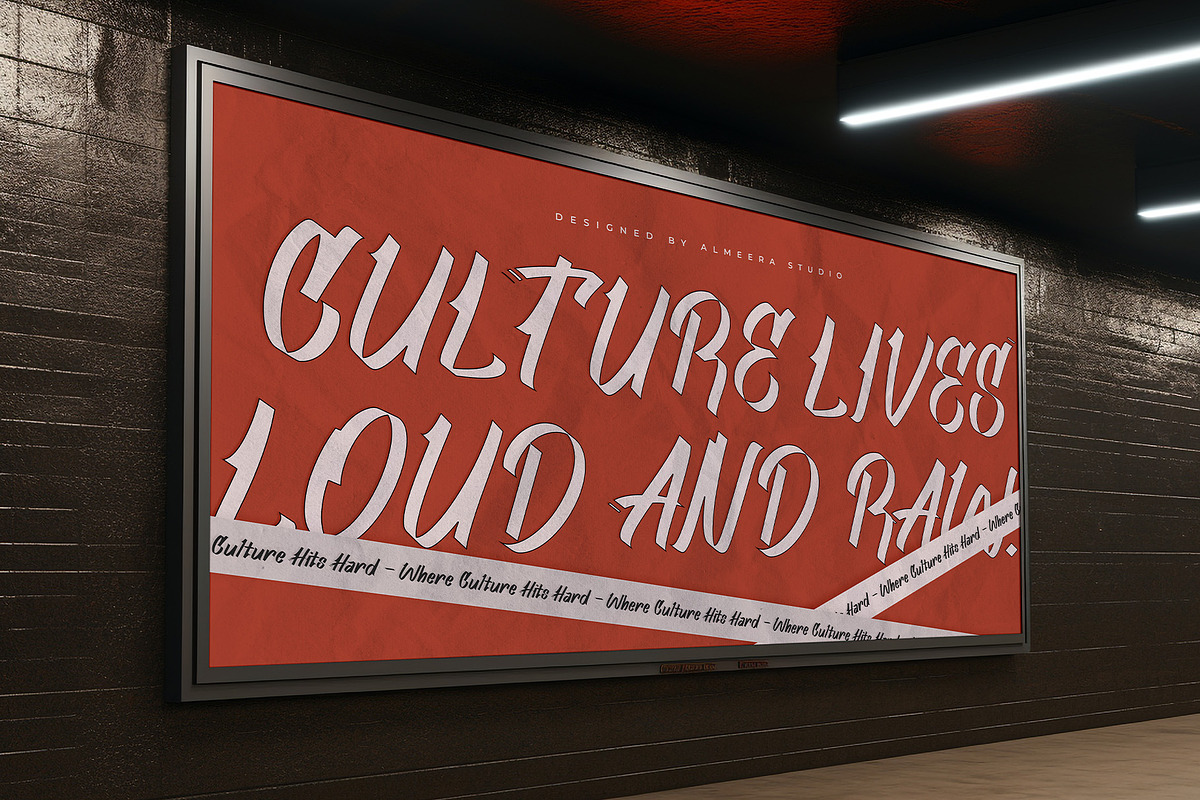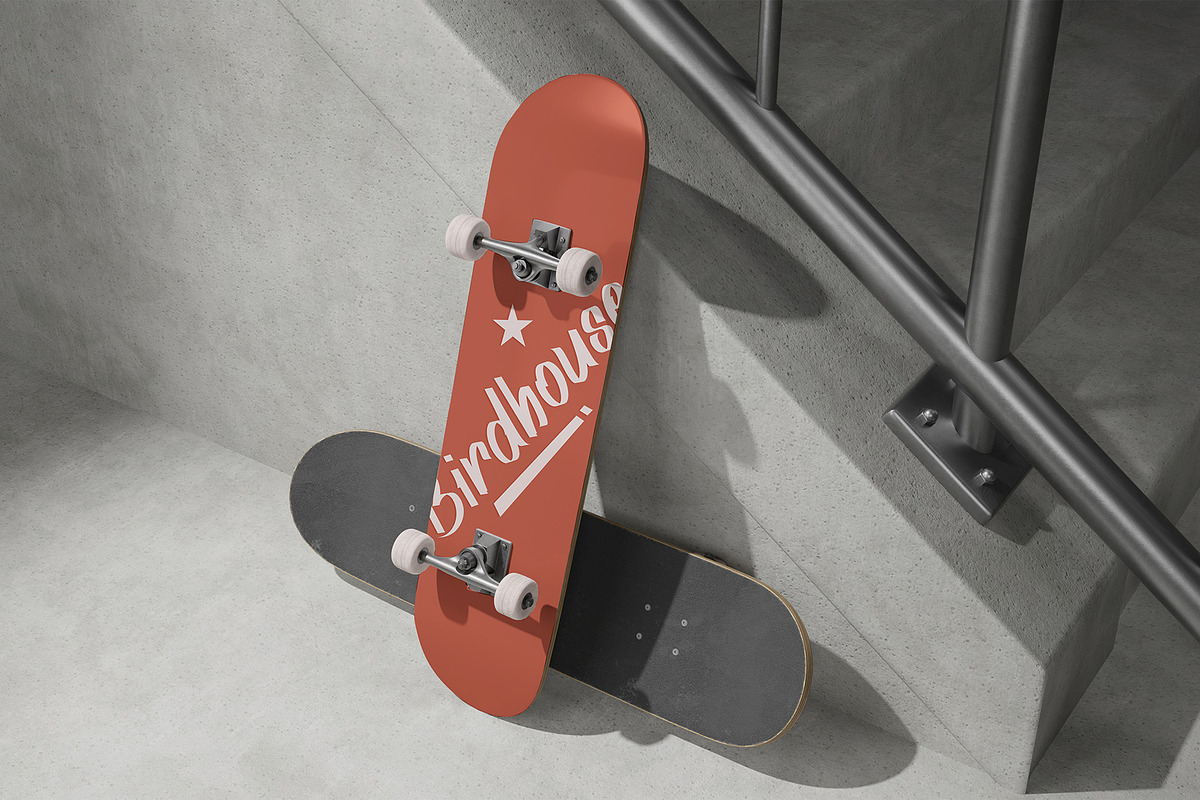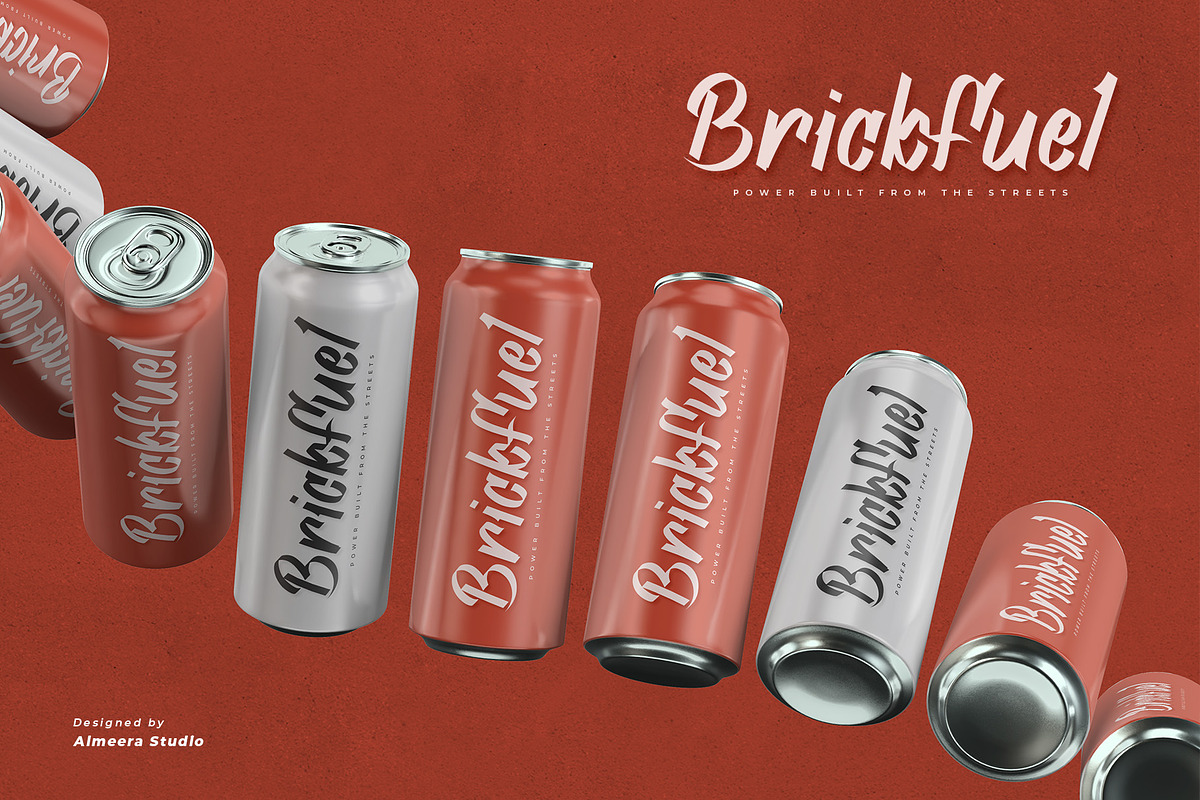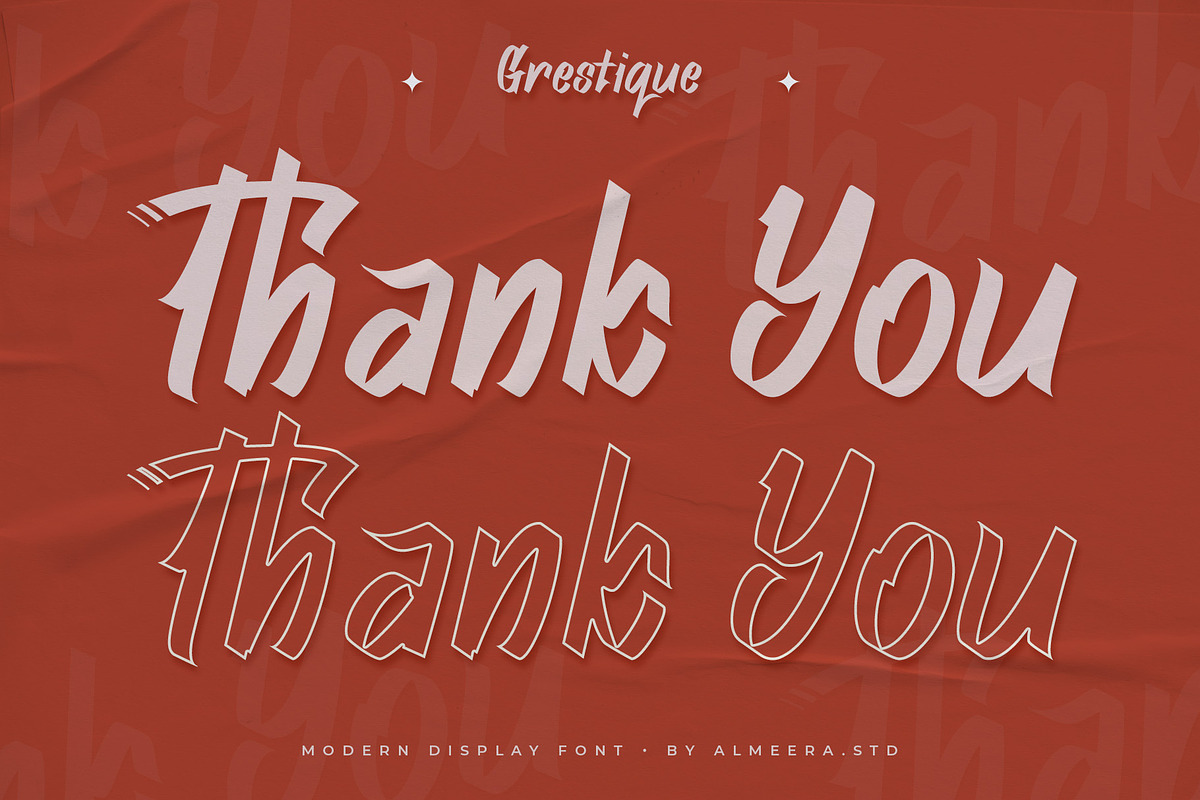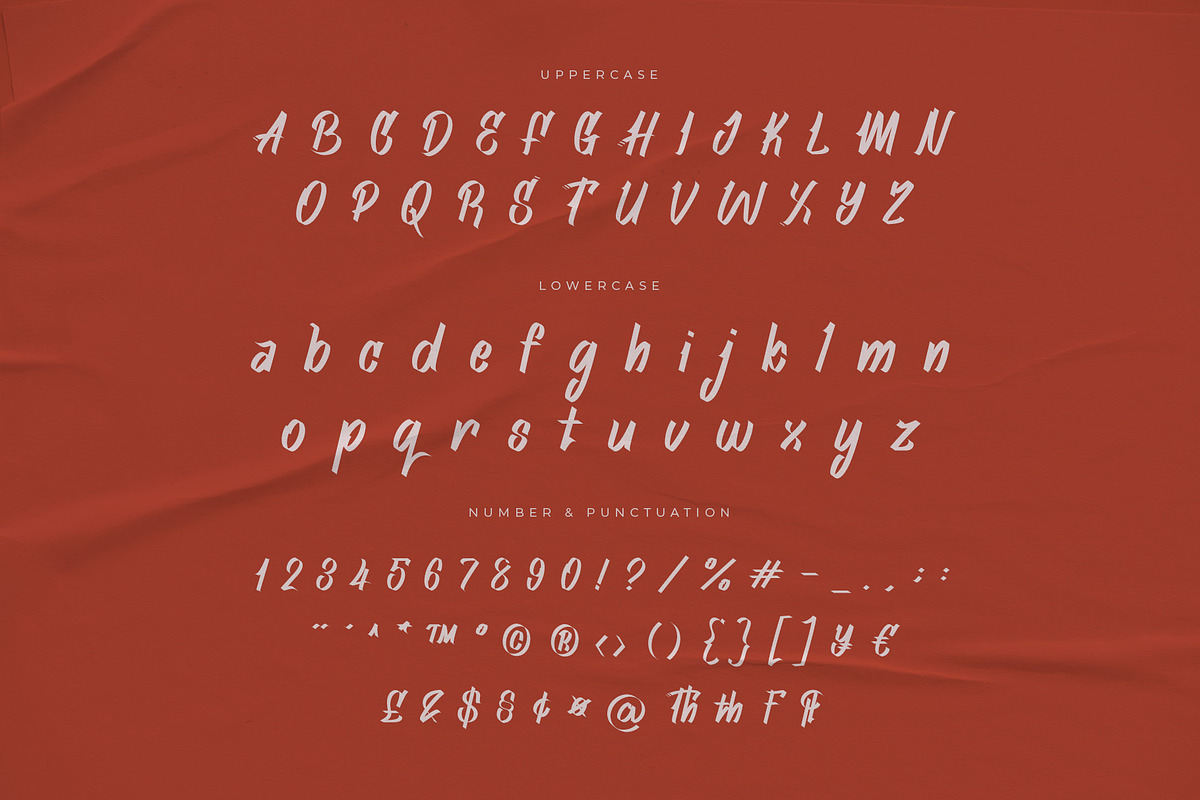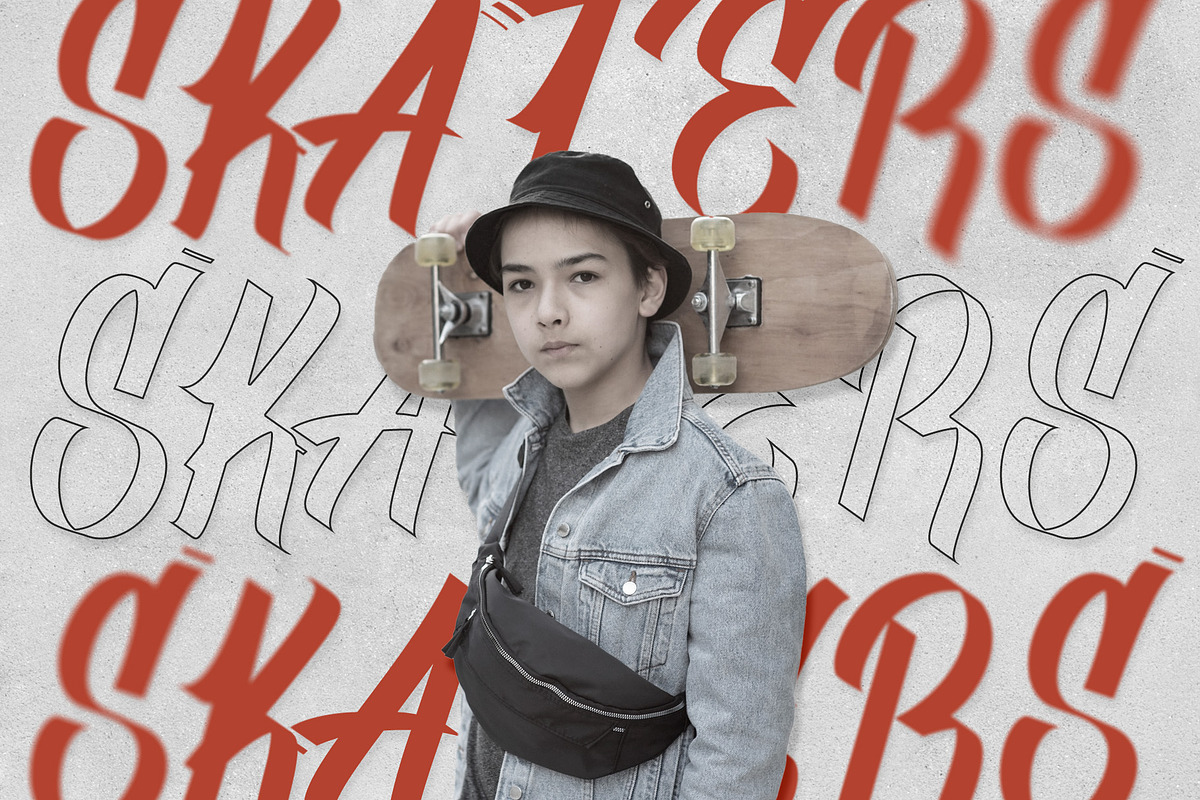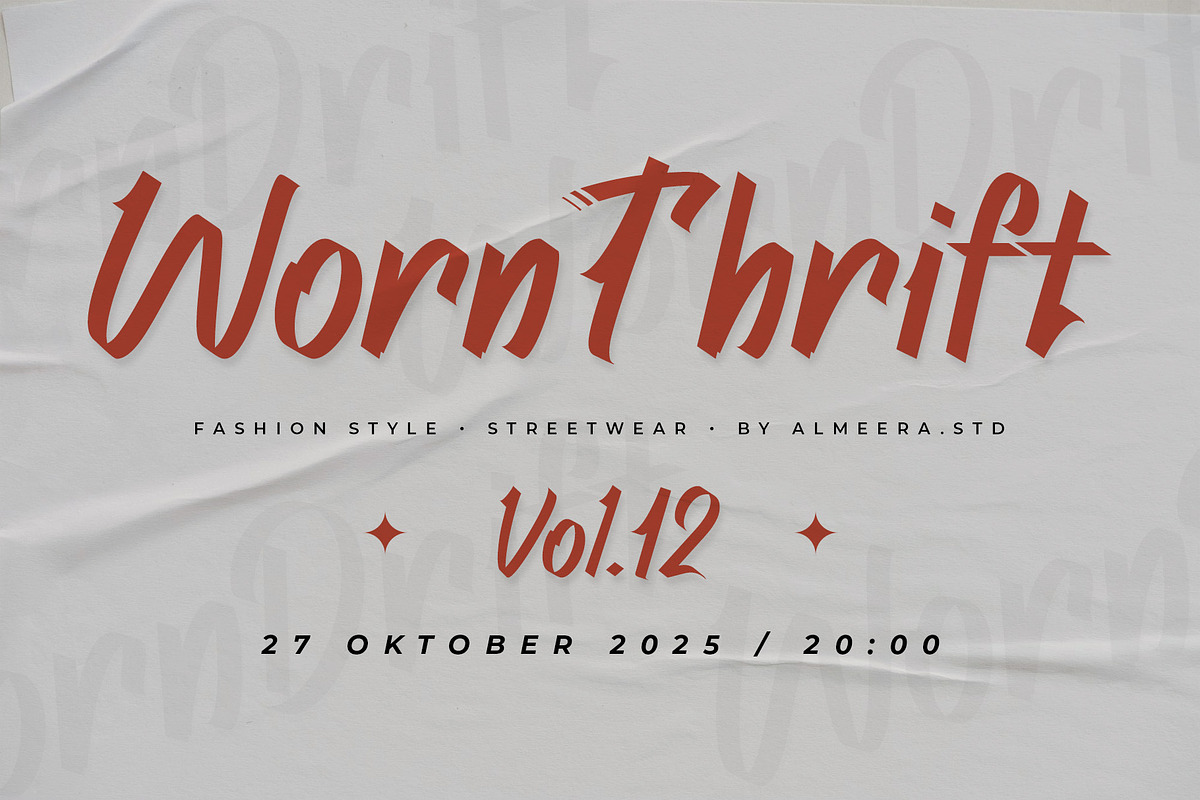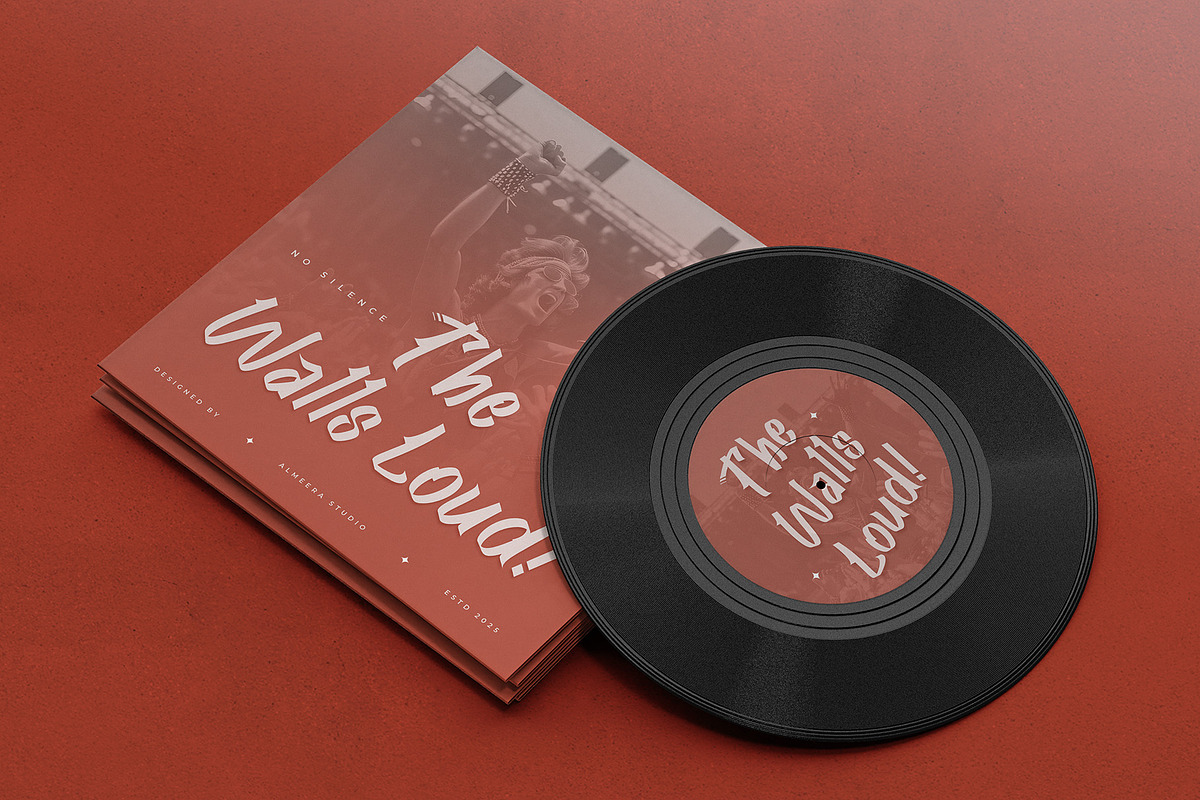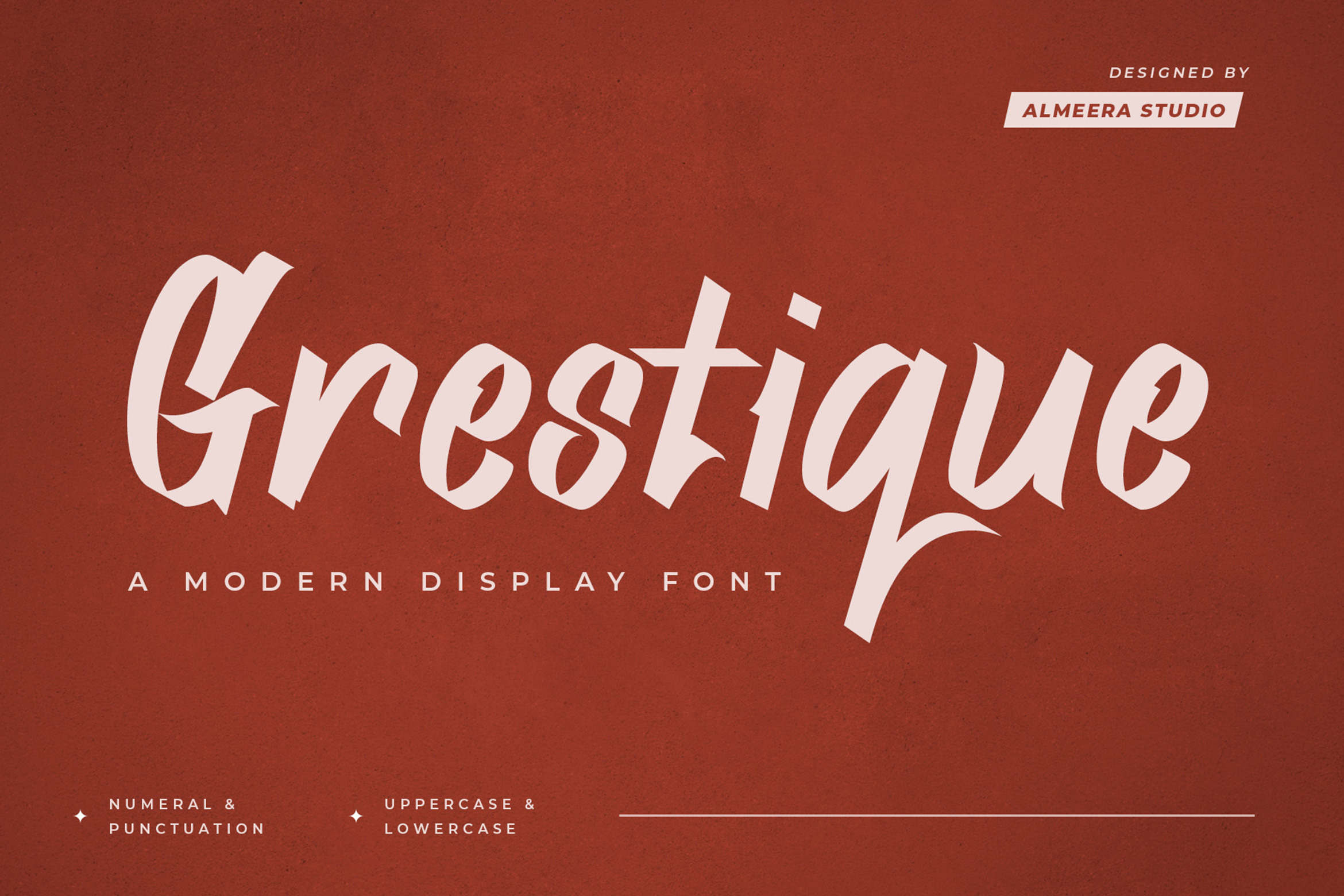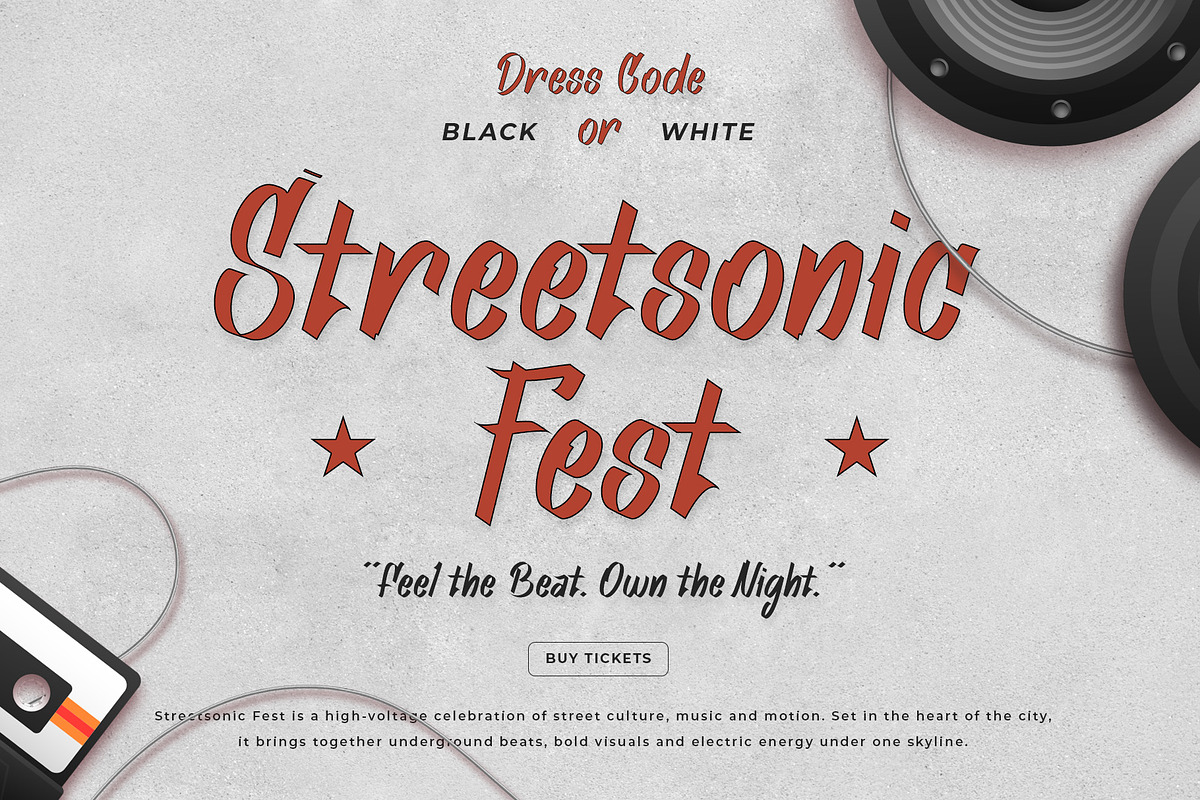
Grestique – Modern Display Font
Grestique is a Modern Display Font that mixes sharp, confident shapes with soft stroke transitions inspired by contemporary lettering. It delivers an expressive, edgy, and elegant look—perfect for bold branding, artistic posters, modern editorial layouts, statement logos, and creative visual identities. With its dynamic rhythm and unique letterforms, Grestique brings a strong presence and artistic flair to any design project.